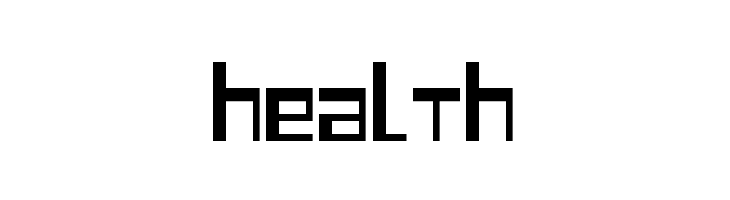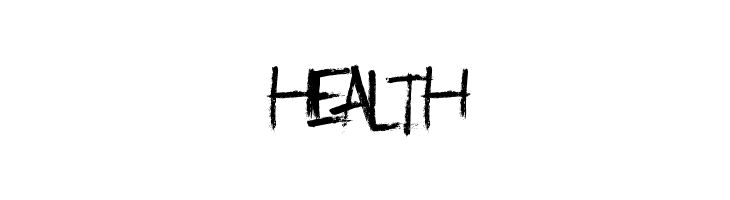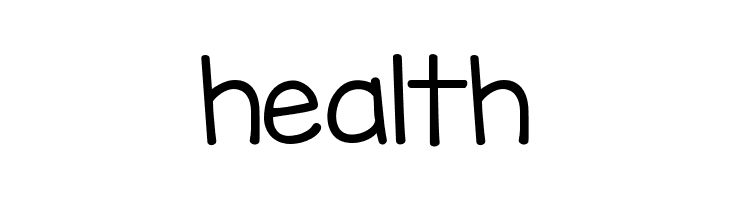
Kinderjoe Regular Font
Font by
typotopia
A playful, bold, handwritten-style font with a friendly and energetic appearance.
Coelacanth Subcaption ExtraLight Font
A refined serif font with a light, elegant style and modern readability.
KinderKinderAbsurdo Font
A decorative font made of cartoon children forming each letter and symbol.
Kinder Surf Font
Font by Brithos Type
Bold, angular display font with a playful style.
Coelacanth Subheading ExtraLight Font
An elegant and whimsical serif font with refined curves and sharp serifs.
vSHexagonica Font
A geometric, angular font with hexagonal shapes and consistent line thickness.
KinderUndAndereEngel Font
Whimsical silhouette illustrations of children, angels, and animals.
The Kind Of feeling Font
A bold, modern font with a strong and impactful design.
Neuton Extrabold Font
A bold serif font with strong, thick strokes and a classic aesthetic.
Stay Kind Inline Font
Font by Graphix Line Studio
A playful, inline font with rounded, elongated characters and a whimsical style.
Super Kinds Font
Font by fsuarez913
A playful, bold font with rounded, bubbly characters ideal for fun and nostalgic designs.
VICTOR HUGO Regular Font
Brian Kindle
A classic, calligraphic serif font with sharp serifs and elegant strokes.
Kindred Rosewood Free Regular Font
Font by
letterhanna
A decorative and ornate font with vintage flair, ideal for artistic projects.
Stay Kind and REPEAT Font
A futuristic, geometric font with rounded edges and bold presence.
Neuton Italic Font
Elegant serif font with a subtle italic slant and moderate stroke contrast.
Kindergarten Regular Font
Font by Lekearls
A playful, handwritten-style font with a casual and friendly appearance.
Kinderkinder Font